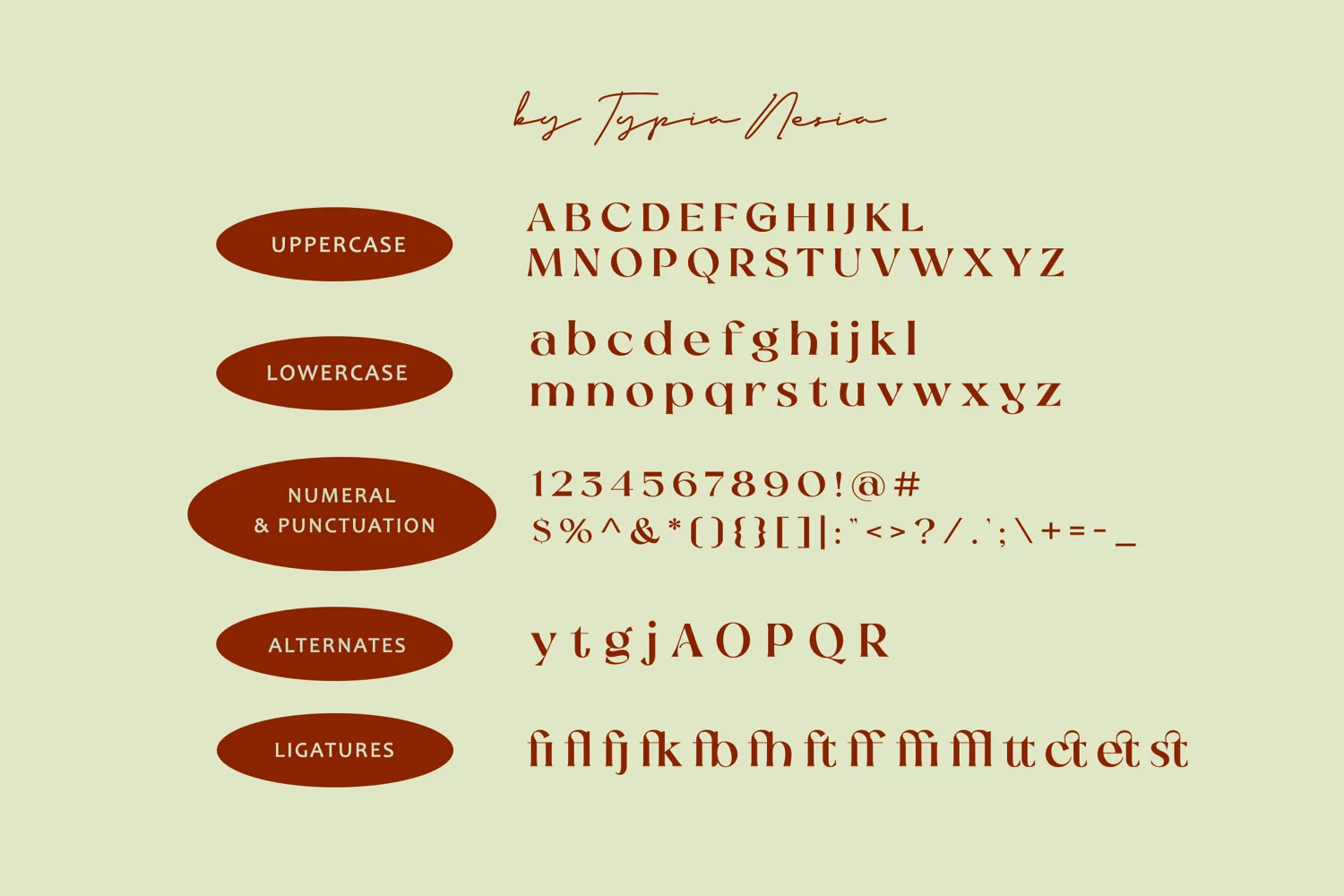
Kattelyn - Vintage / Classic Beauty Elegant Bold Serif - Royal Fashion Classy Fancy Display Font
Kattelyn comes with some alternates and ligatures, so you can combine it to make a perfect typography design. It is perfect for your up coming projects. Such as luxury logo and branding, classy editorial design, woman magazine, cosmetic brand, fashion promotional, art gallery branding, museum, historical of architectural, boutique branding, stationery design, blog design, modern advertising design, card invitation, art quote, home decor, book/cover title, special events and any more.